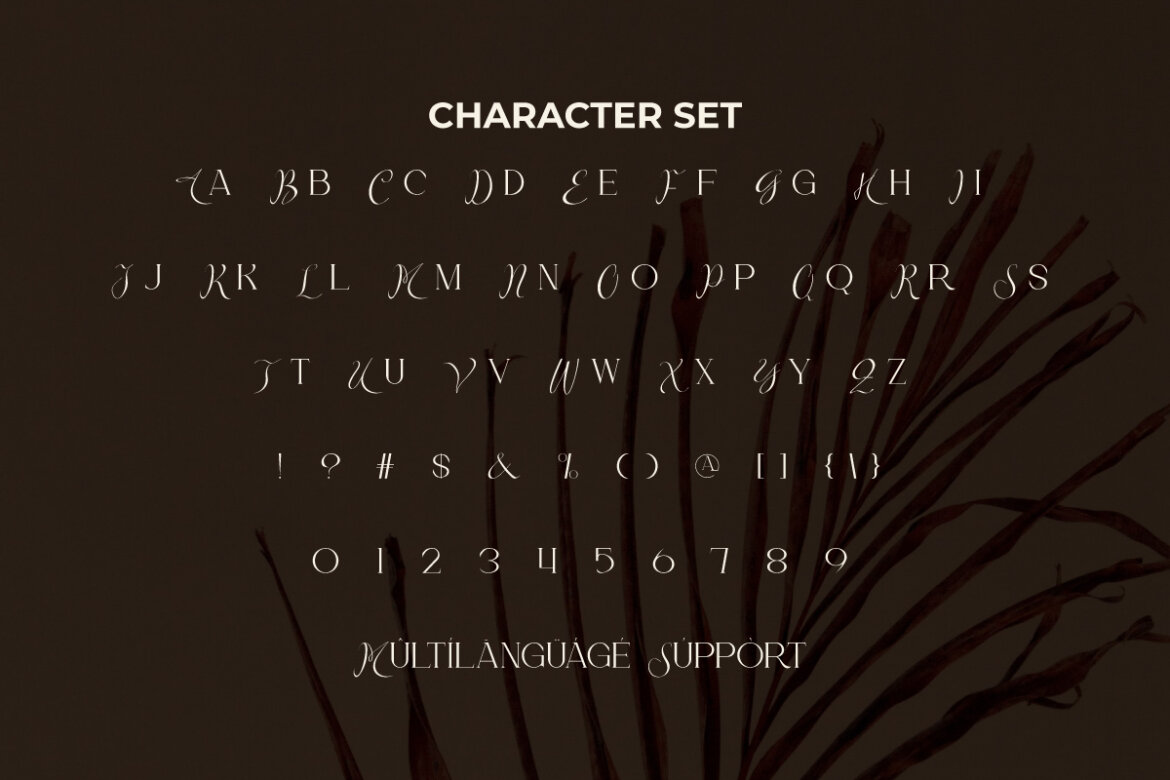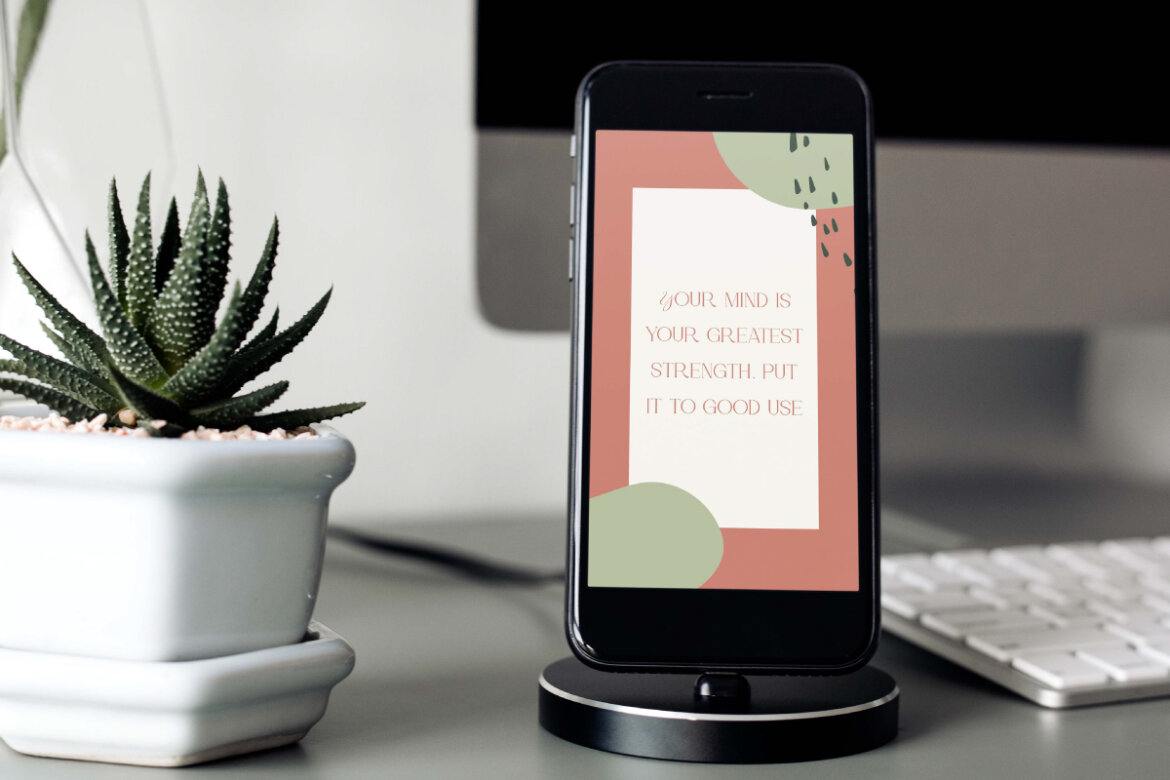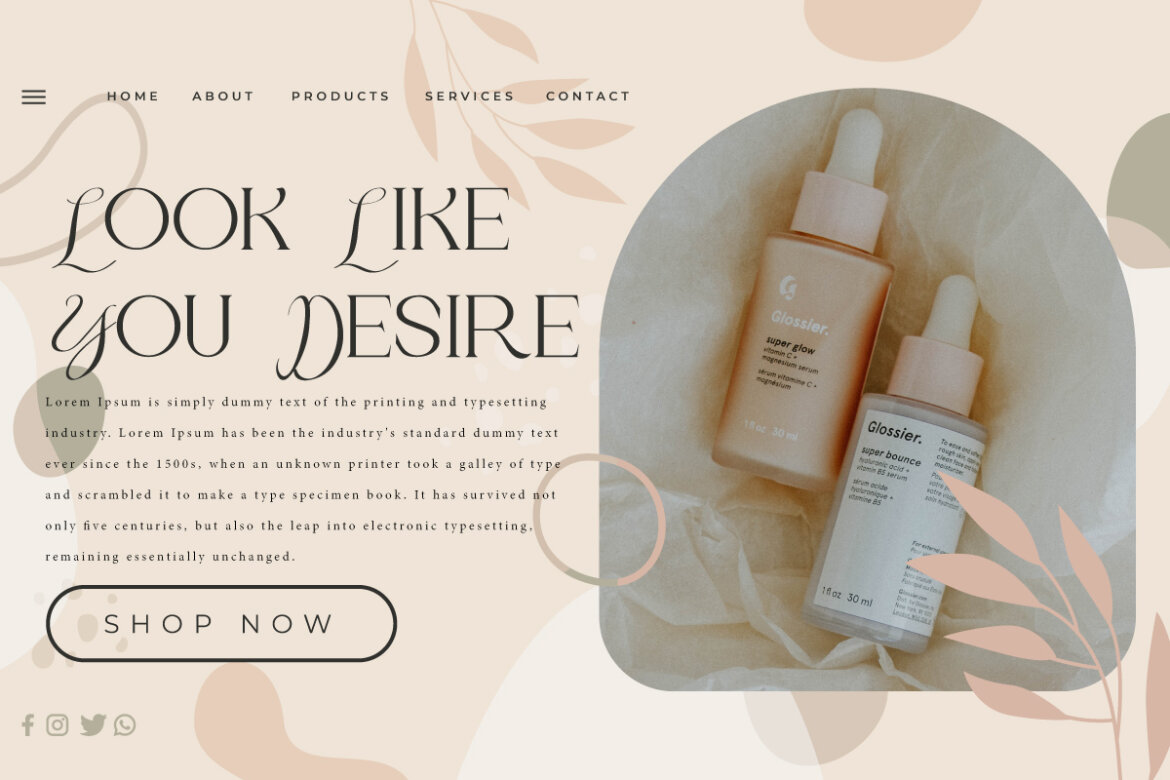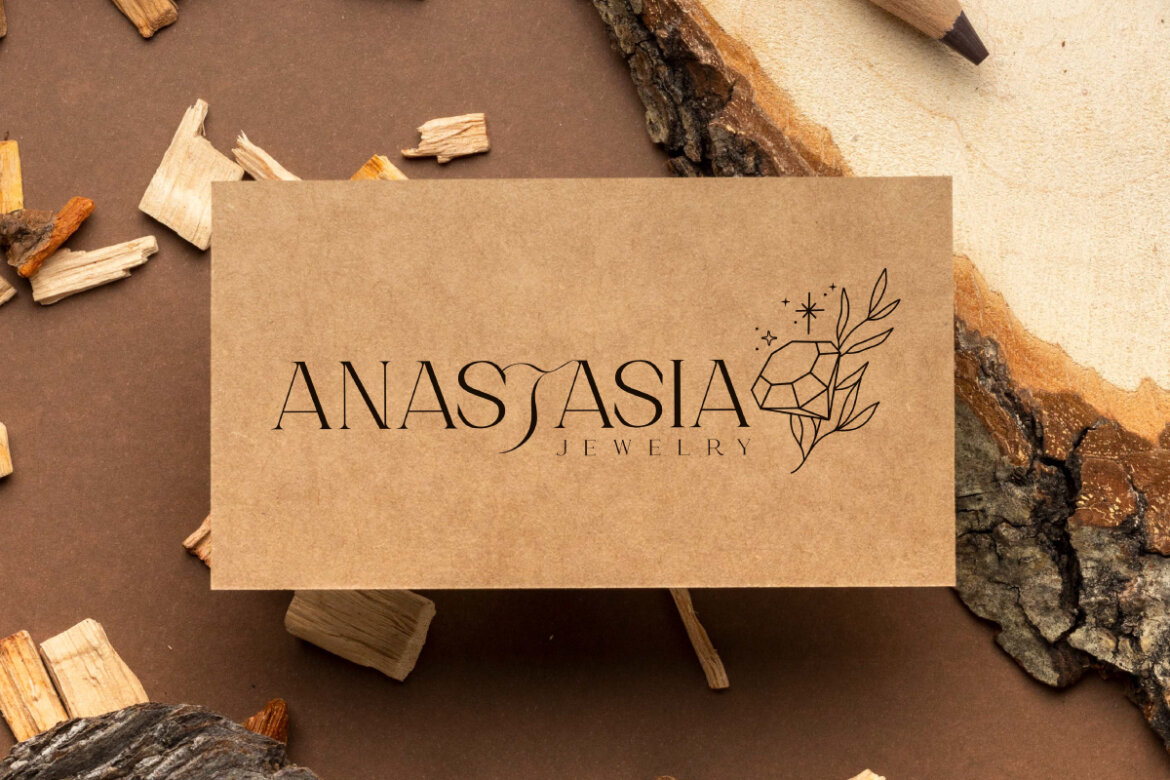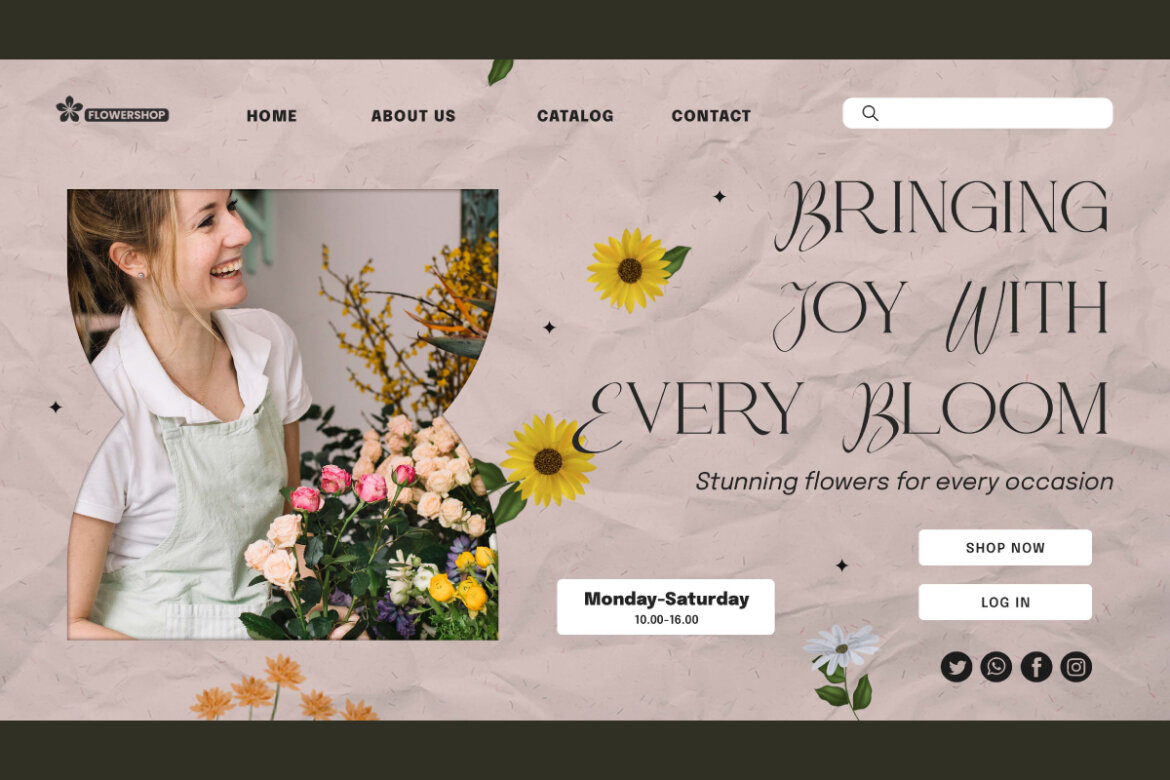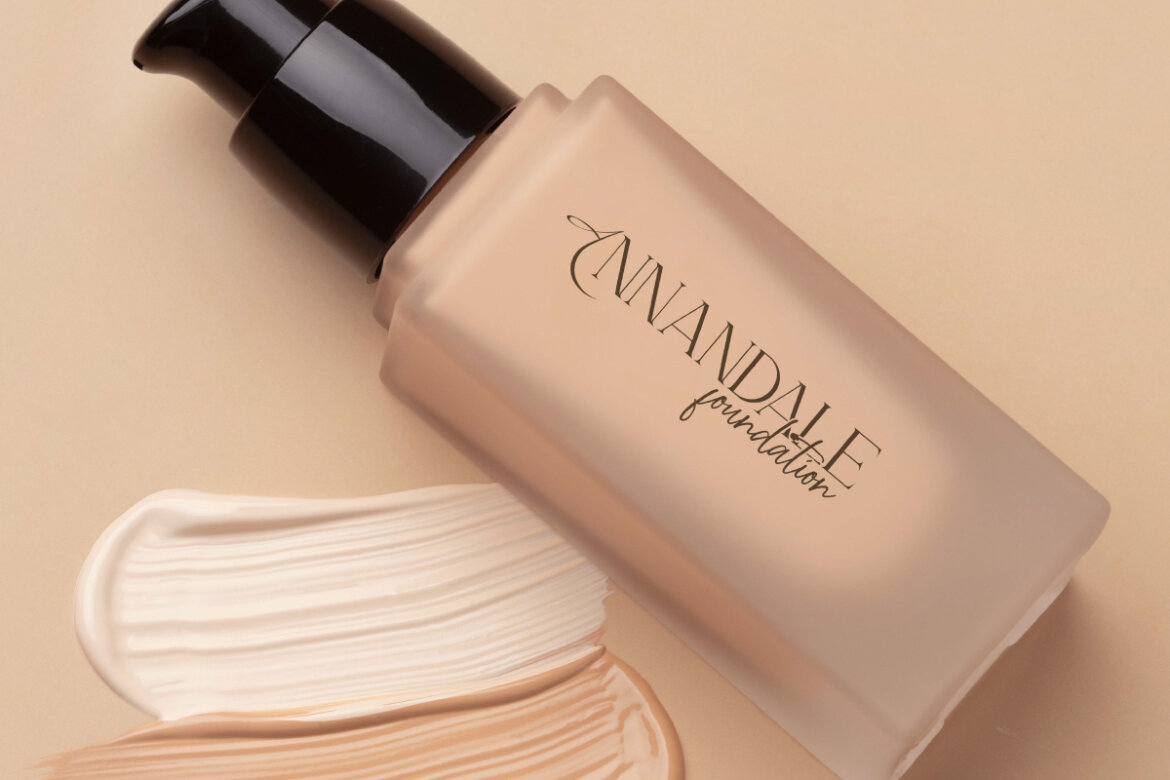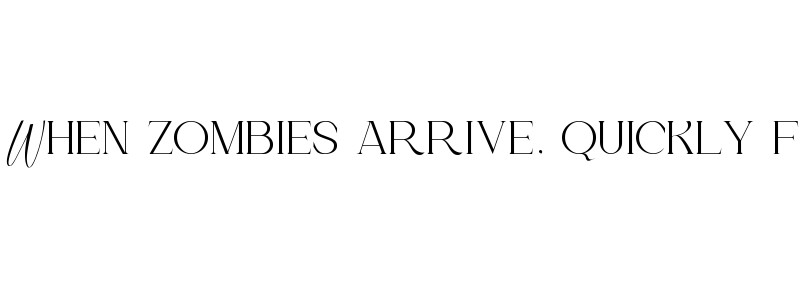
Annandale
Annandale Font is a sleek and elegant serif display font. It’s a sophisticated serif display that presents the feel of classy professional letters. Beautiful letter characters with a balanced look between modern basics and charming twists wrapped into one. It fits perfectly with blogs, book titles, brand names, business cards, company logos, invitation, label products, movie titles, quotes, stickers, watermarks, websites, and various other designs.
Annandale Font is an awesome font that provides a fancy and unique style at the same time. It’s perfect for clothing brand, cafeteria, cosmetic, event organizer, film, florist, furniture, graphic design, handicraft, home decoration, jewelry, lounge, makeup artist, photography, restaurant, skincare, etc. The typography is perfect for creating a chic lifestyle design.
Annandale Font comes with a complete set of Uppercase and Lowercase Basic Characters in slightly different appearances, Numbers, a large range of Punctuation, and Symbols. It is supported with multilingual characters and ready to use both on Windows machine or Mac with simple installations. It’s tested to work well in the Adobe Apps (Illustrator, Adobe InDesign, Adobe Photoshop) CorelDraw, and others. PUA Encode Characters means you can access all the characters easily – Fully accessible without additional design software.